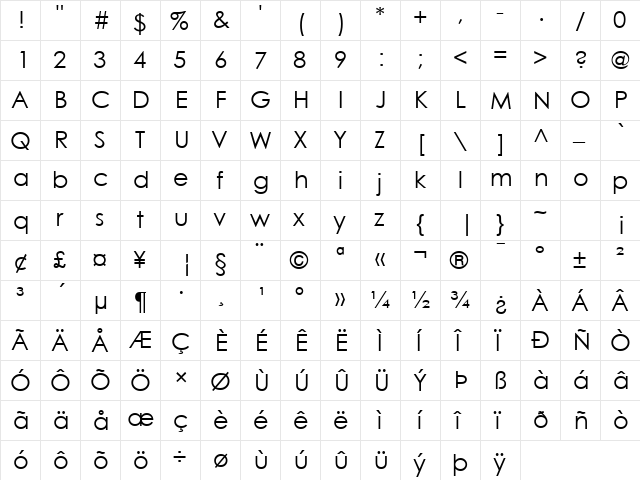
GE Centurion Regular
Design Context for GE Centurion Typeface
GE Centurion takes a measured approach to typography — its balanced proportions and neutral character make it a reliable workhorse for both digital and print work.